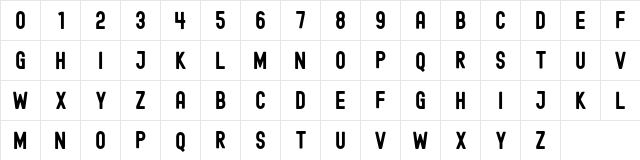
Edmund-Free Free
| Designer | Muhammad Husni Haikal |
Design Context for Edmund-Free Typeface
Edmund-Free is a composed and adaptable typeface that performs quietly and consistently across a wide range of design contexts.